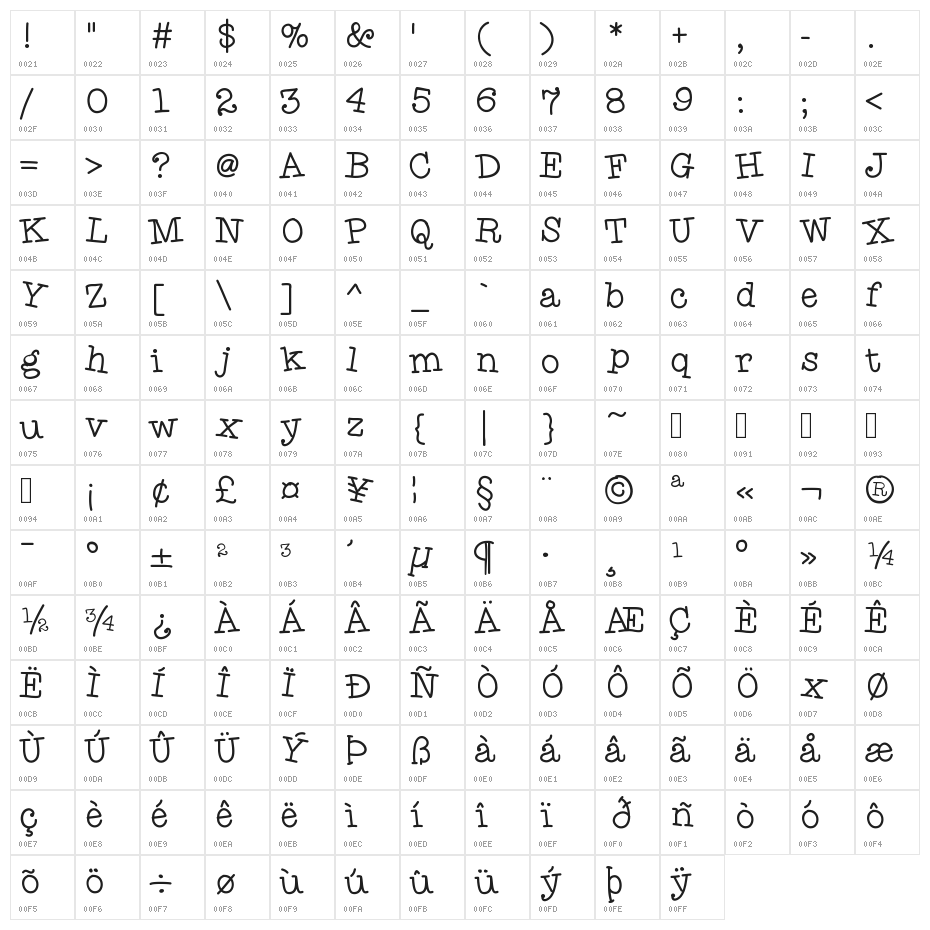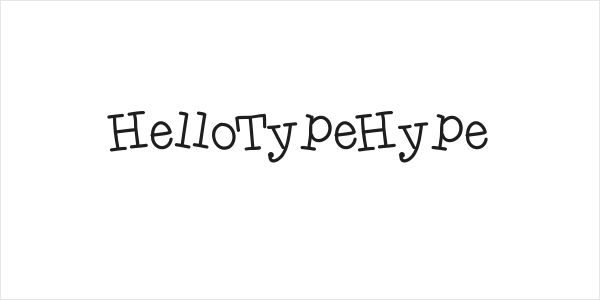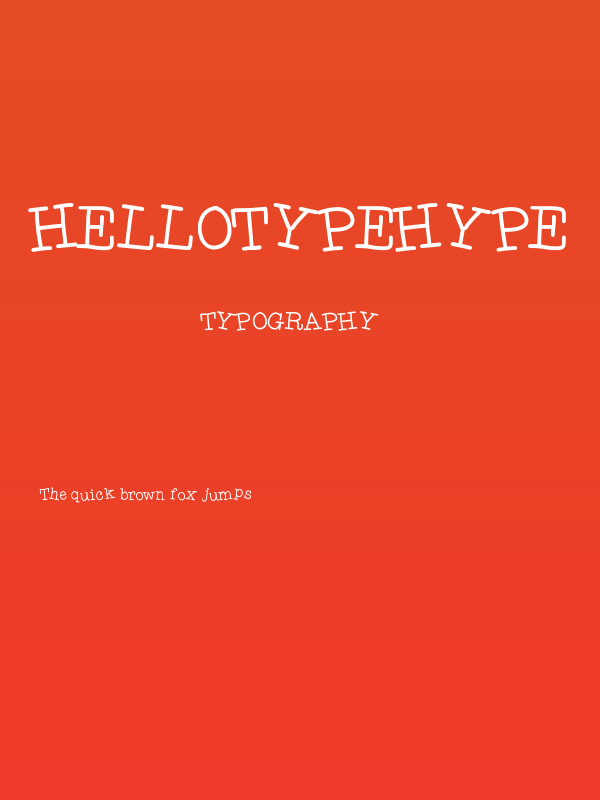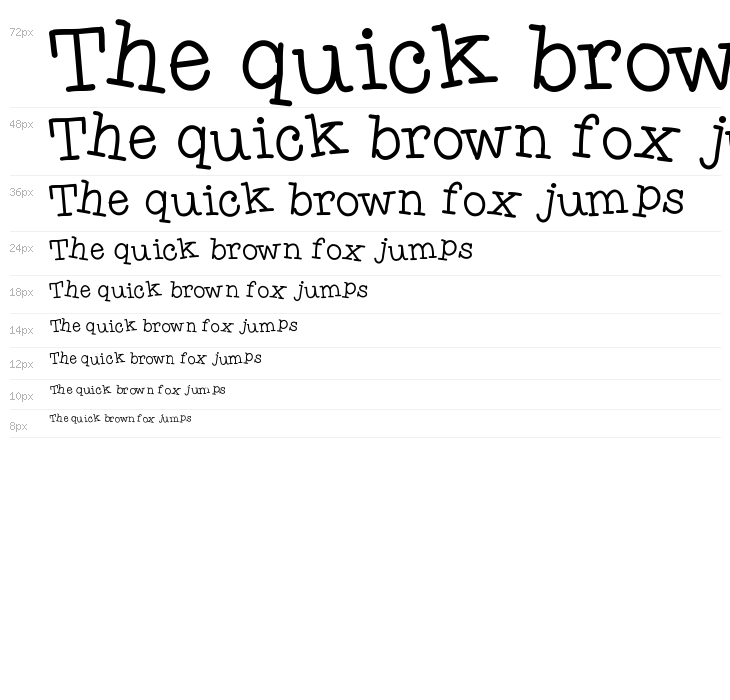
HelloTypeHype Font
HelloTypeHype Description
This playful and whimsical font features a handwritten style with a casual, friendly appearance. The letters have a slight tilt, adding to the informal and approachable feel. The strokes are consistent in thickness, providing a uniform look across all characters. The uppercase and lowercase letters are well-balanced, with rounded edges that enhance the font's charm. The numerals and special characters maintain the same playful aesthetic, making this font versatile for various creative projects.
| Overall Style | Playful |
| Use Case | Headlines, Logos, Informal Text |
| Proposed Projects | Ideal for children's books, greeting cards, playful branding, and informal invitations. |